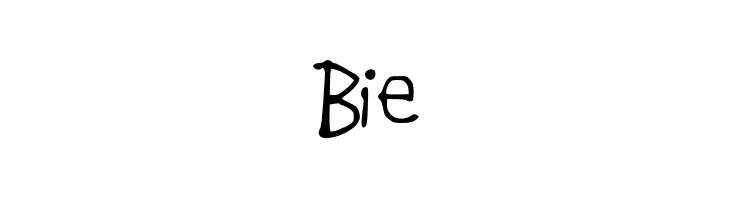
( Rachel Ro )
A playful, handwritten font with consistent stroke thickness and informal style.
( Rachel Kozy - www.rachelkozy.com )
( Rabisco - Estactu )
A decorative and artistic font with bold, angular lines and intricate details.
( RJ van der Kaaij )
A geometric, angular font with a futuristic and technical design.
( RAW inc - www.hearusraw.com )
A bold, cursive font with a playful and dynamic handwritten style.
( Qwerks - Joanne Taylor - graphicriver.net/user/joiaco )
A bold, impactful font with thick strokes and a modern geometric influence.
( Qwerks - Joanne Taylor - graphicriver.net/user/joiaco )
A playful, rounded font with a bold and modern design.
( Qwerks - Joanne Taylor - graphicriver.net/user/joiaco )
A modern, geometric font with clean lines and a futuristic feel.
( Qwerks - Joanne Taylor - graphicriver.net/user/joiaco )
A bold, distressed font with an industrial, concrete-like texture.
( Qwerks - Joanne Taylor - graphicriver.net/user/joiaco )
A playful handwritten font with uneven strokes and a casual style.